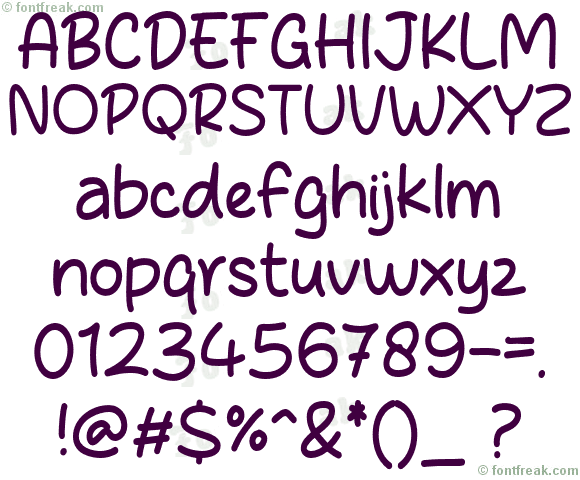
Vertically
Vertically by MJType is a captivating display font that effortlessly combines modern aesthetics with playful charm. This font stands out in the decorative category, characterized by its unique vertical alignment that adds an engaging twist to traditional lettering. The stroke weight is consistent yet varied enough to create a sense of movement, while the spacing is thoughtfully designed to ensure readability without sacrificing style. With its rounded edges and fluid forms, Vertically exudes a friendly and approachable vibe, making it perfect for a range of creative projects.
The versatility of the Vertically font makes it an ideal choice for various applications. It shines brightly on wedding invitations, where its whimsical nature can convey a sense of joy and celebration. Additionally, the font works wonderfully for movie posters, adding a contemporary touch that captures attention and reflects the film's theme. Restaurant menus can also benefit from this font, as it brings a modern flair that enhances the dining experience. Content creators will find Vertically especially useful for social media graphics, providing a unique style that stands out in a crowded digital space.
What truly sets the Vertically font apart is its distinctive vertical alignment and playful character, which invites viewers to engage and explore. With its unique design elements and versatility, this font is not just a tool; it’s a creative partner that can transform ordinary text into an extraordinary visual experience. Explore the potential of the Vertically font with a free download, and let your projects come to life.